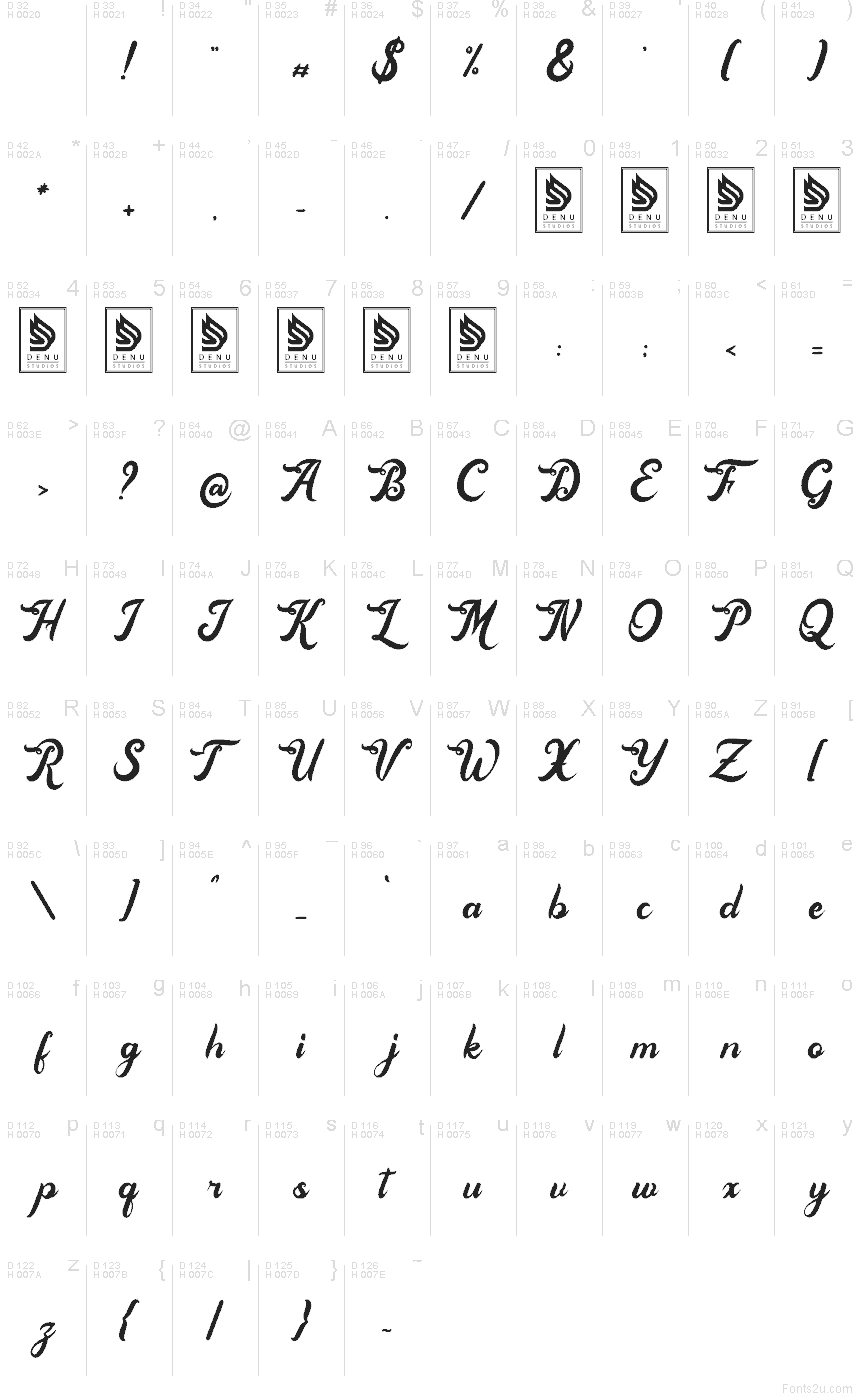
Famylia Holistika by Denustudios is a free brush script font with a romantic, calligraphic sweep. The letters lean into long, curling strokes and soft joins, mixing a graceful old-style flourish with enough brush energy to keep it from feeling formal.
It fits branding, boutique packaging, wedding stationery, beauty editorials, and cafe menus where a name or short phrase needs a flowing signature feel. As a free font, it also makes sense for cover lines, title cards, and monograms, because those extended swashes give even a brief word room to feel dressed up.